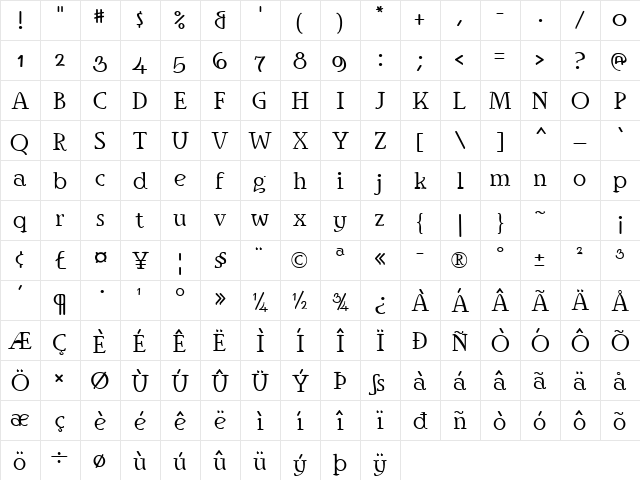
Ingriana Regular Free Font
Ingriana Regular
Ingriana Family
Ingriana Regular
Design Context for Ingriana
Ingriana is a composed and adaptable typeface that performs quietly and consistently across a wide range of design contexts.